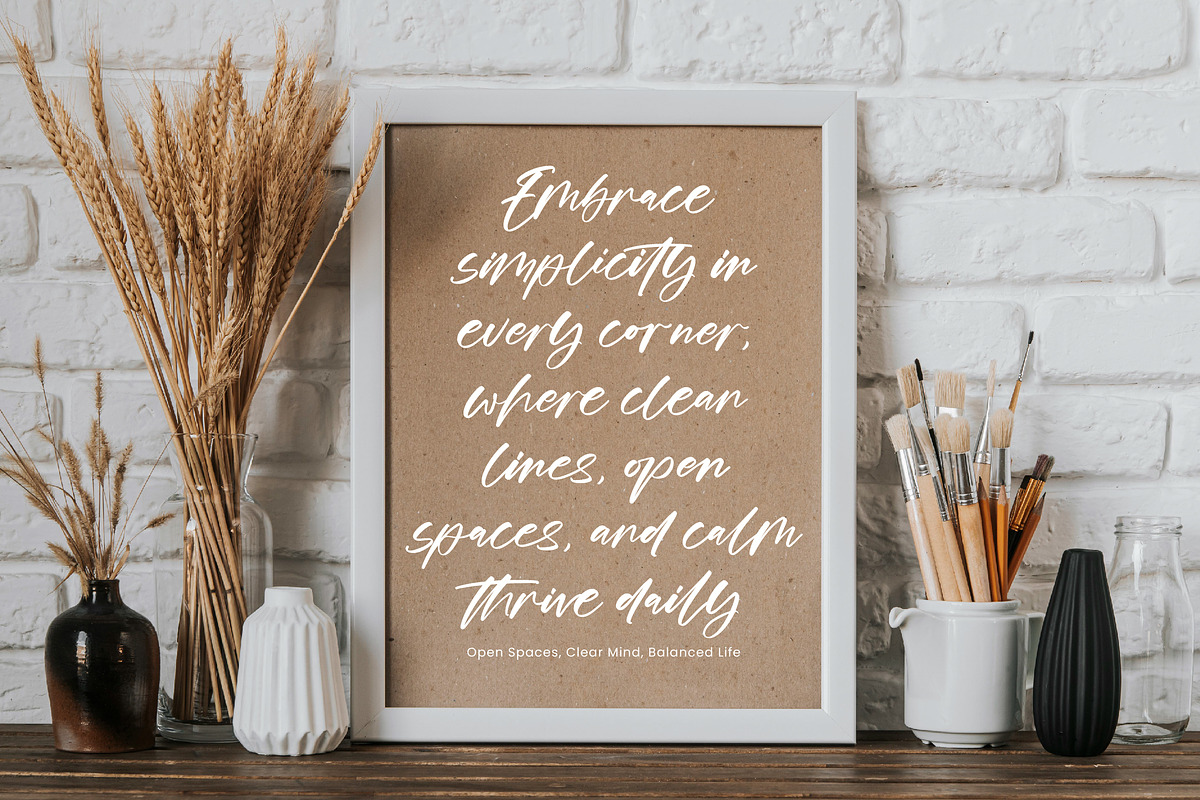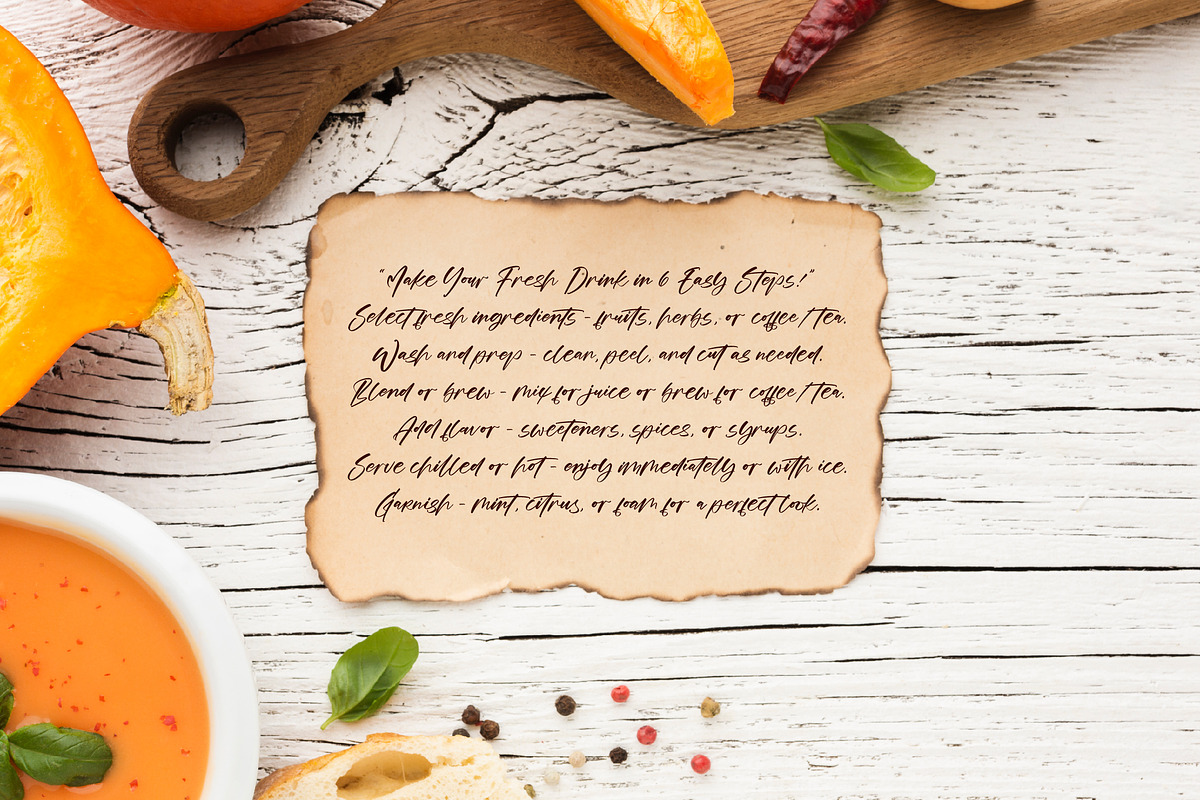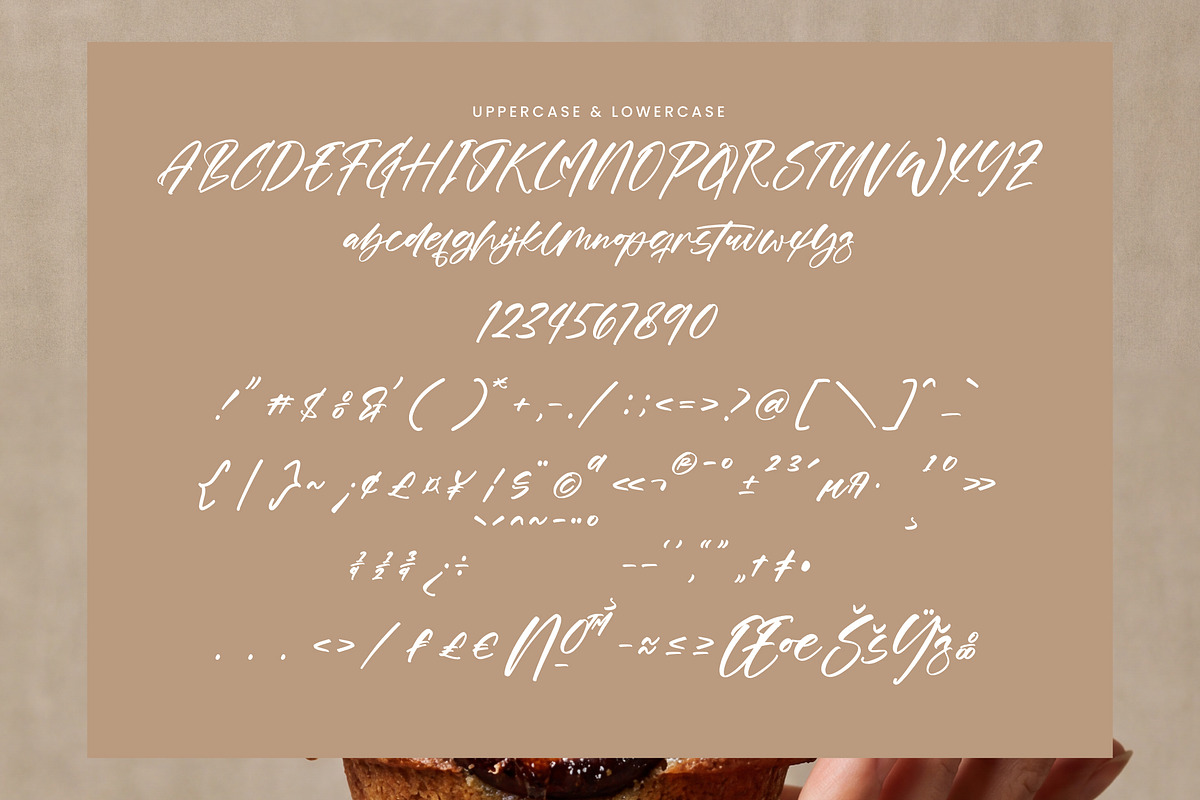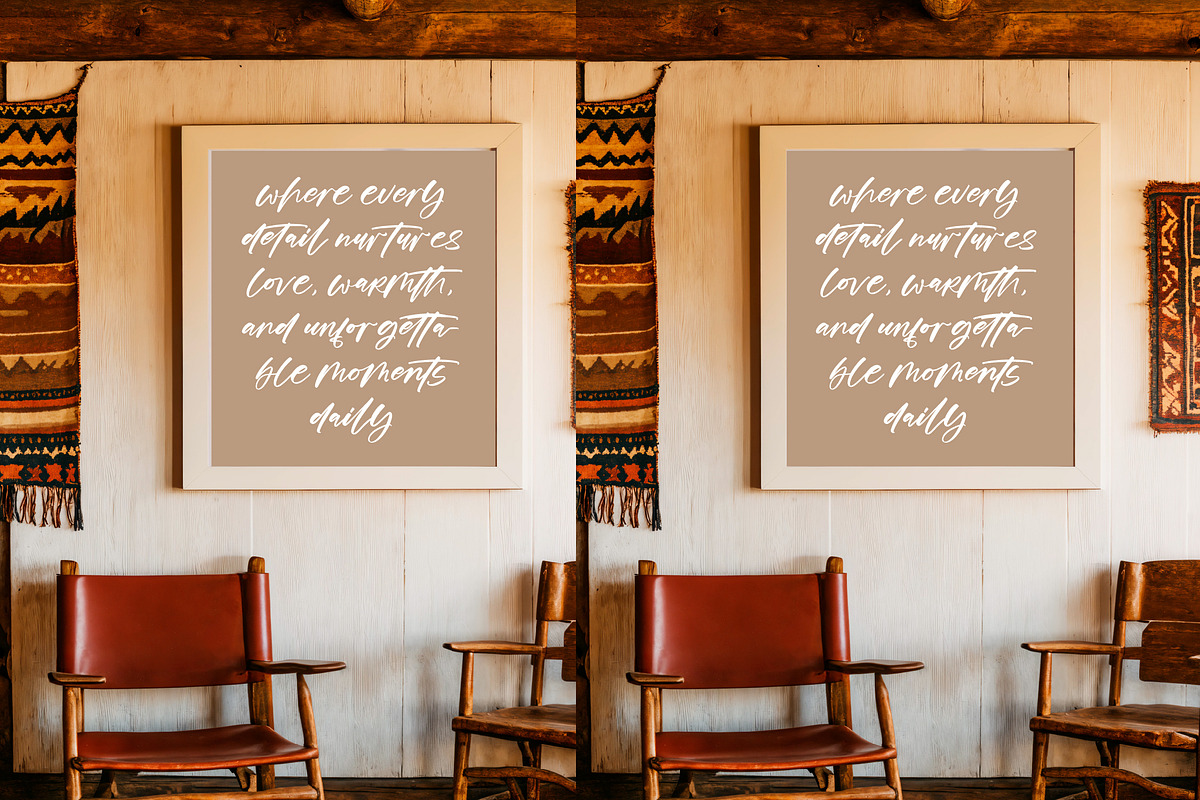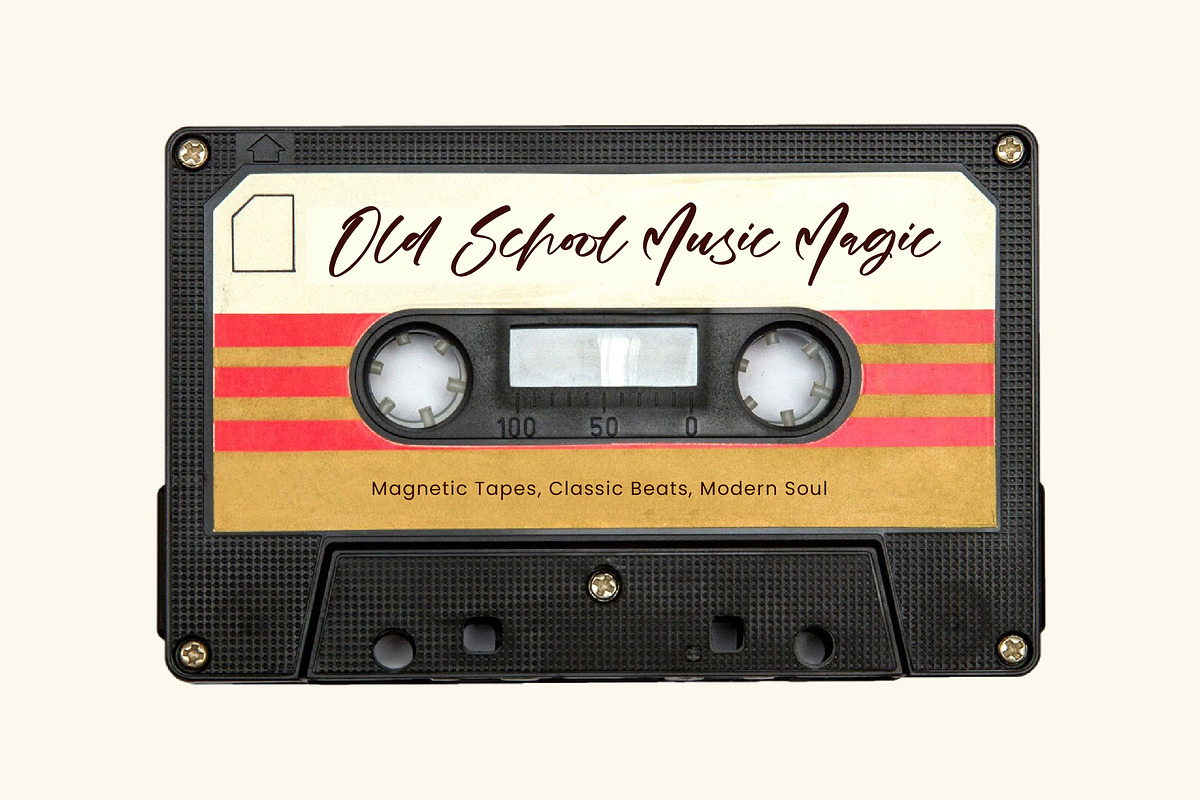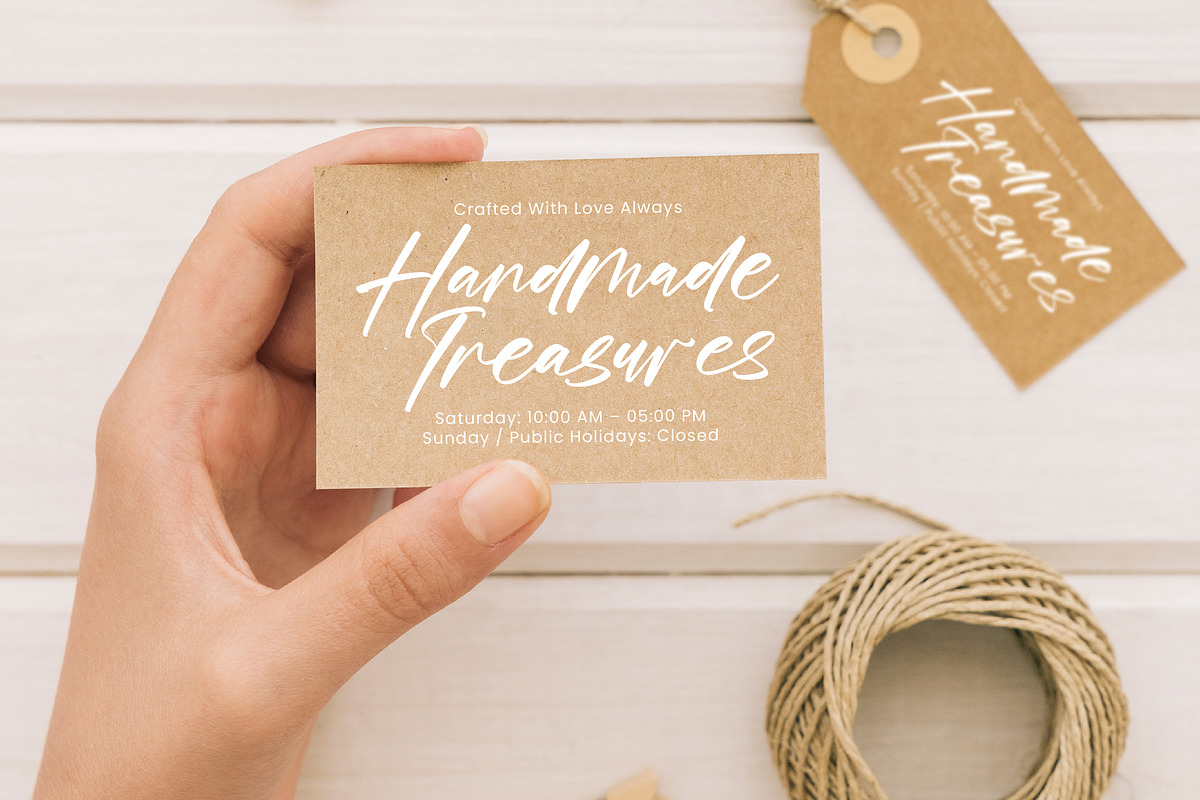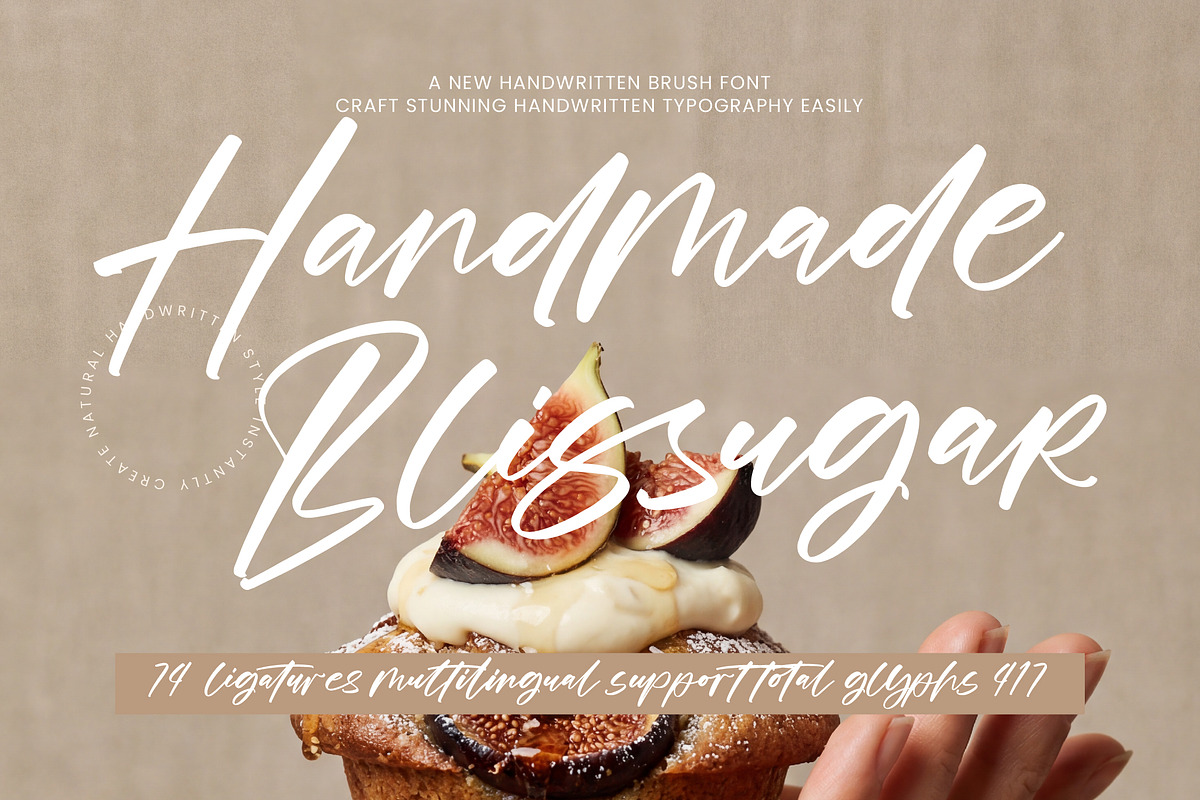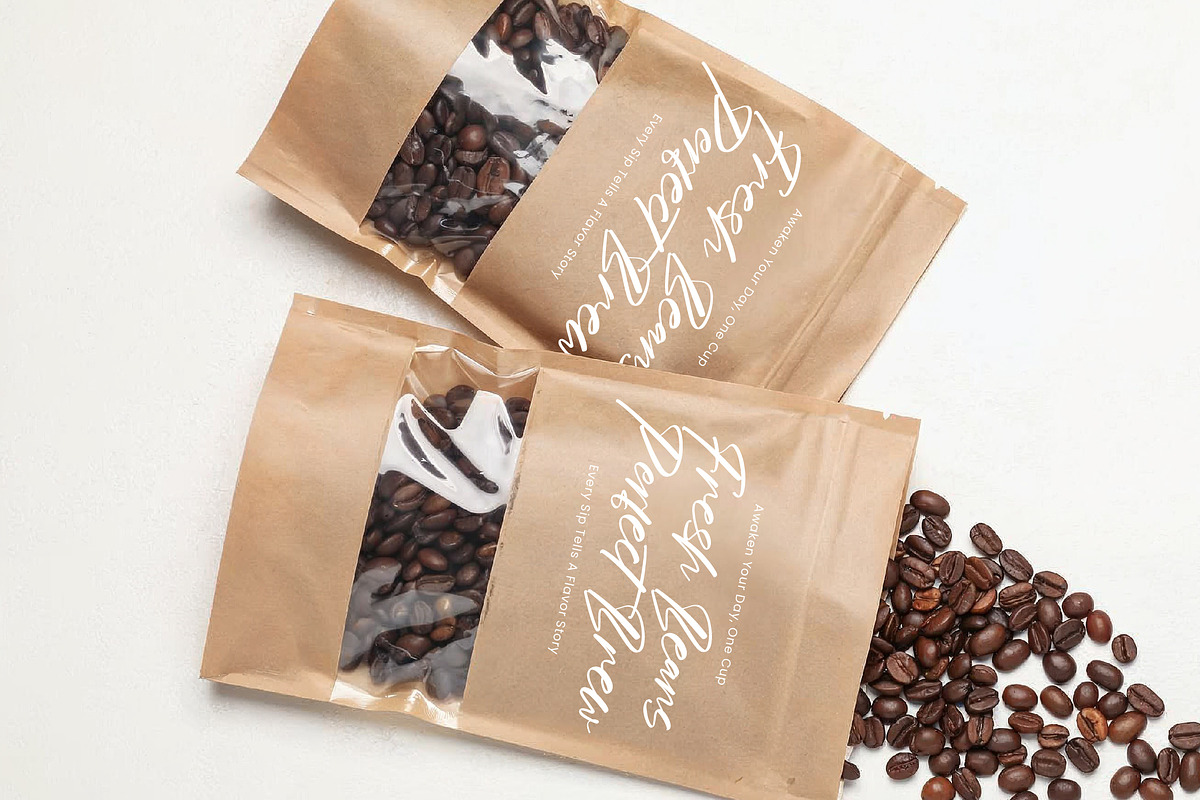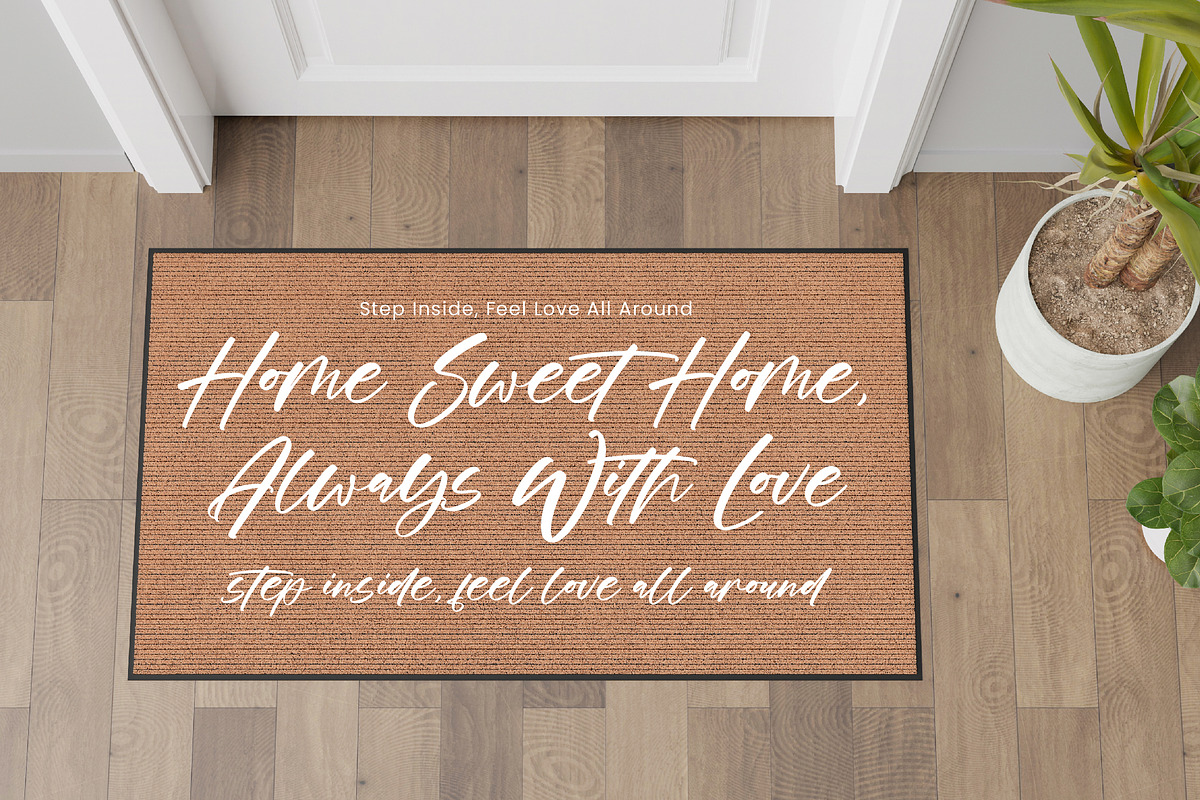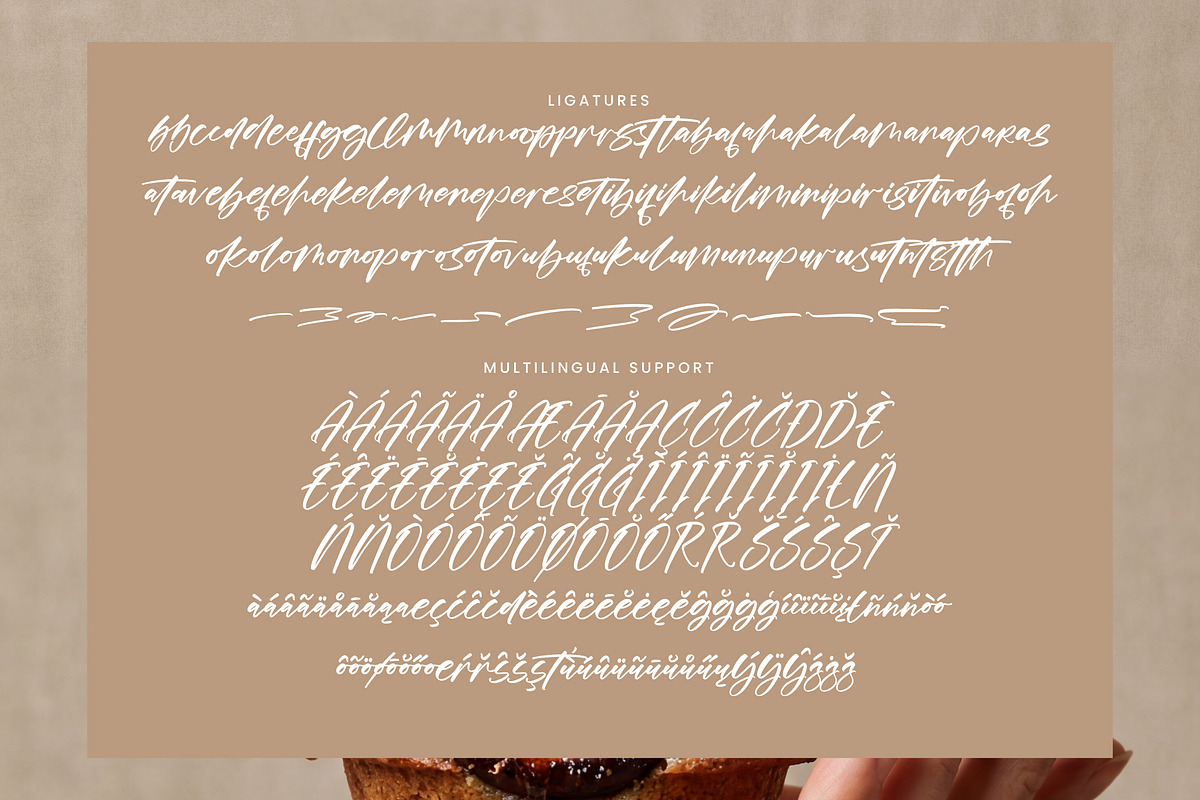
Handmade Blissugar
Handmade Blissugar – Natural Handmade Display Font
Bring warmth, creativity, and handcrafted charm to your designs with Handmade Blissugar, a unique handmade display font featuring bold, organic letterforms and an authentic hand-drawn feel. Every character is carefully crafted to deliver a natural, imperfect look that adds personality and originality to your work.
Whether you're creating branding for artisan products, designing rustic packaging, or crafting eye-catching social media graphics, Handmade Blissugar gives your typography a friendly and memorable presence. Its expressive style makes it perfect for projects that celebrate creativity, craftsmanship, and authenticity.
Designed with versatility in mind, Handmade Blissugar works beautifully across both print and digital media, making it an excellent choice for designers, makers, entrepreneurs, and creative professionals.
Logos & Brand Identity
Coffee Shops & Cafés
Organic & Handmade Products
Food Branding
Posters & Flyers
Merchandise & Apparel
Labels & Stickers
Quotes & Headlines
Craft & DIY Projects
Greeting Cards
Creative Advertising
74 Ligatures
417 Total Glyphs